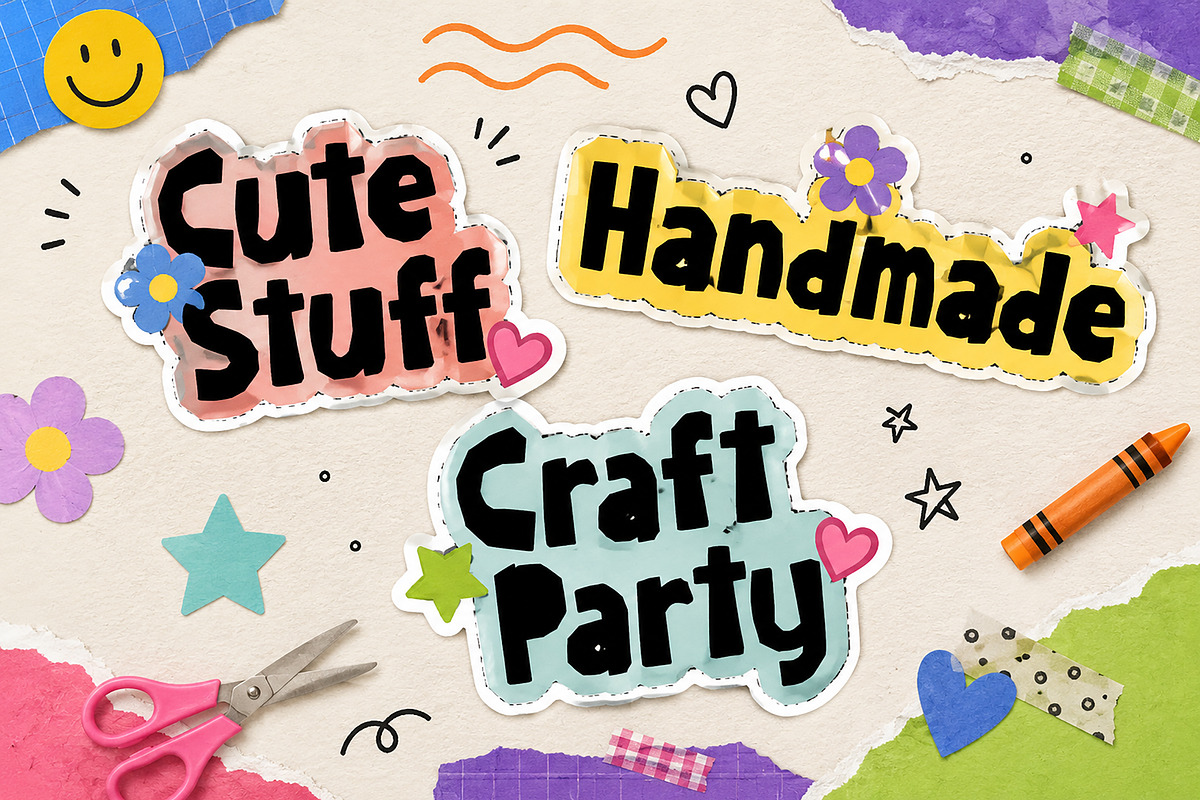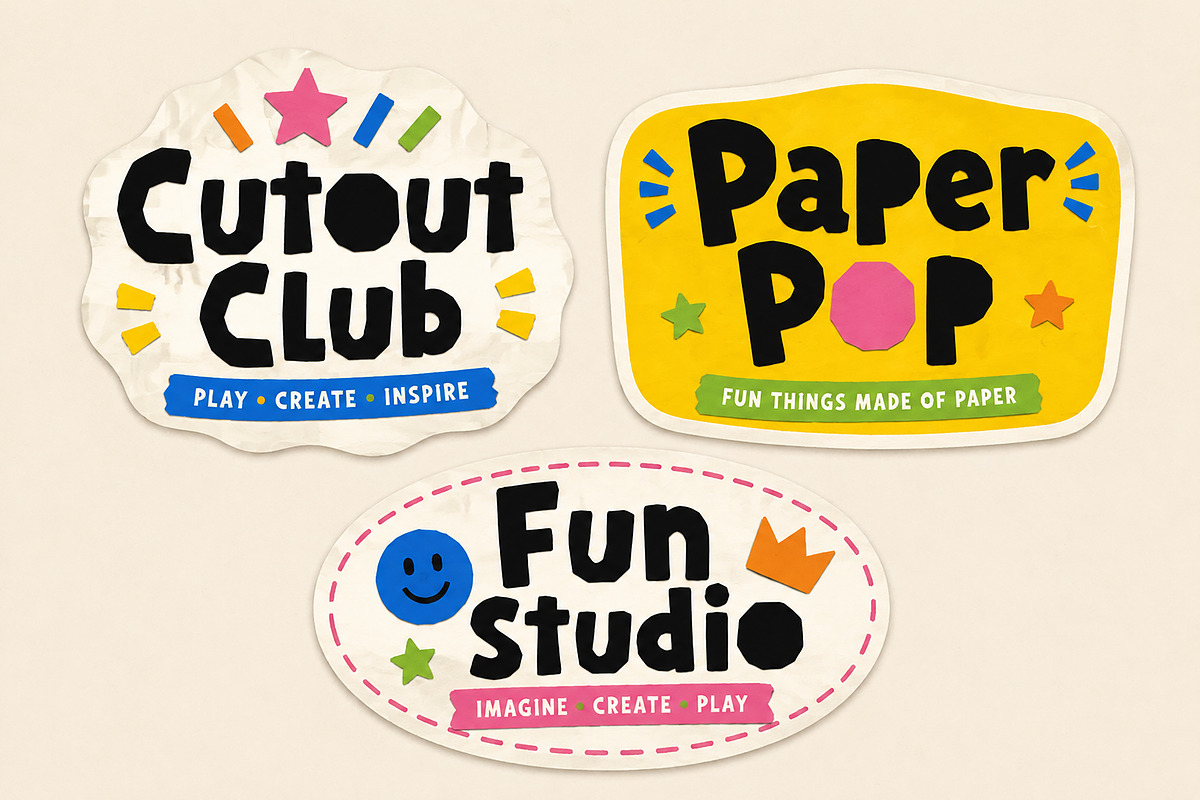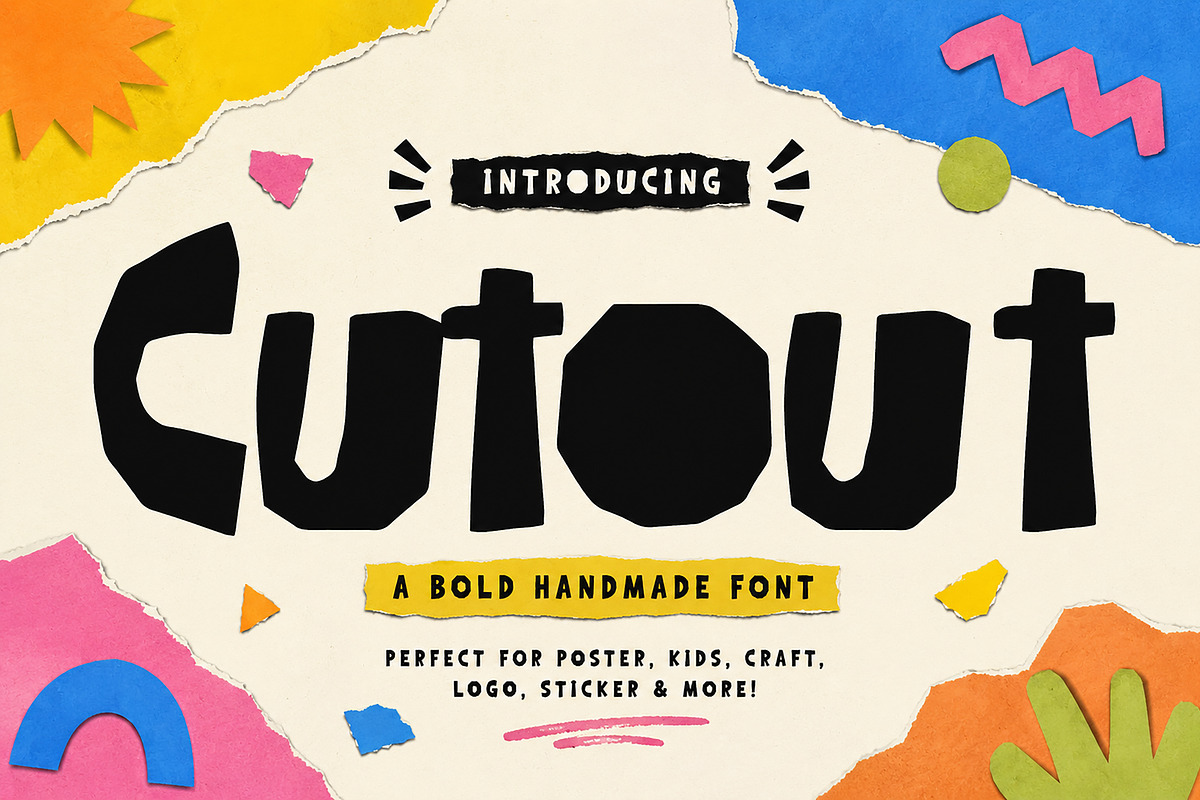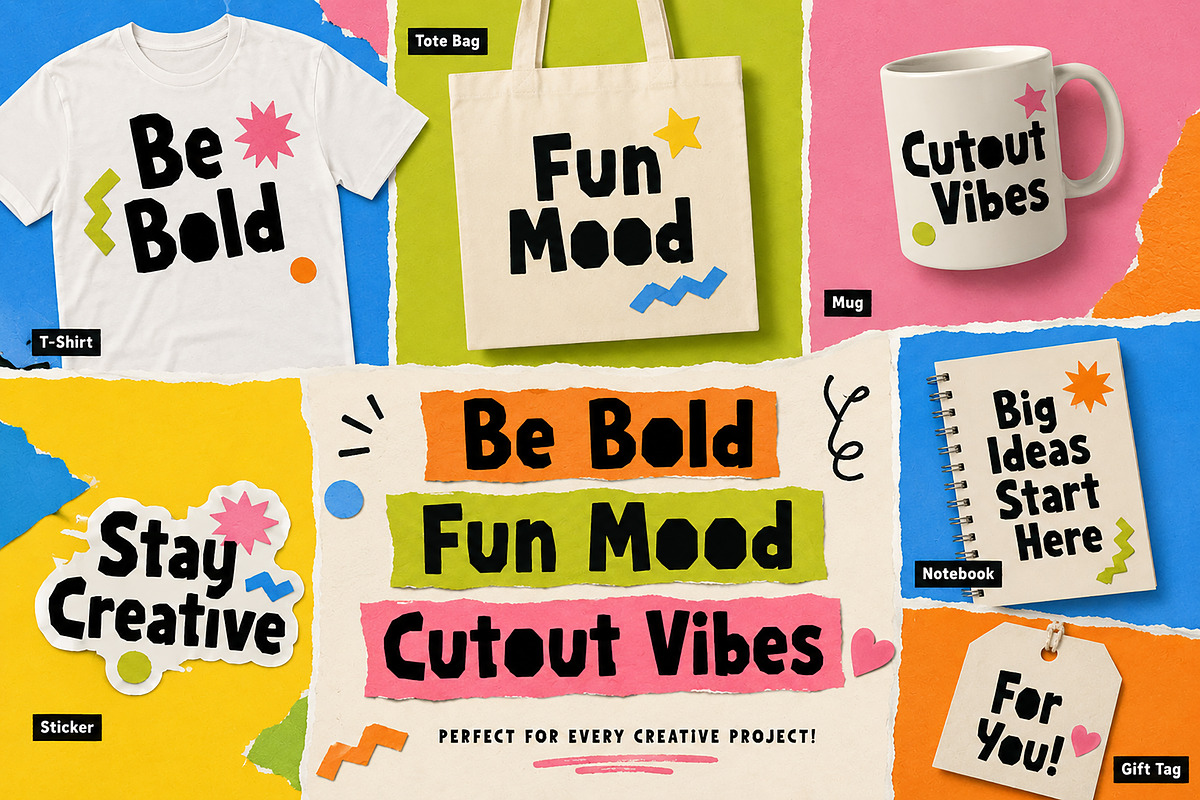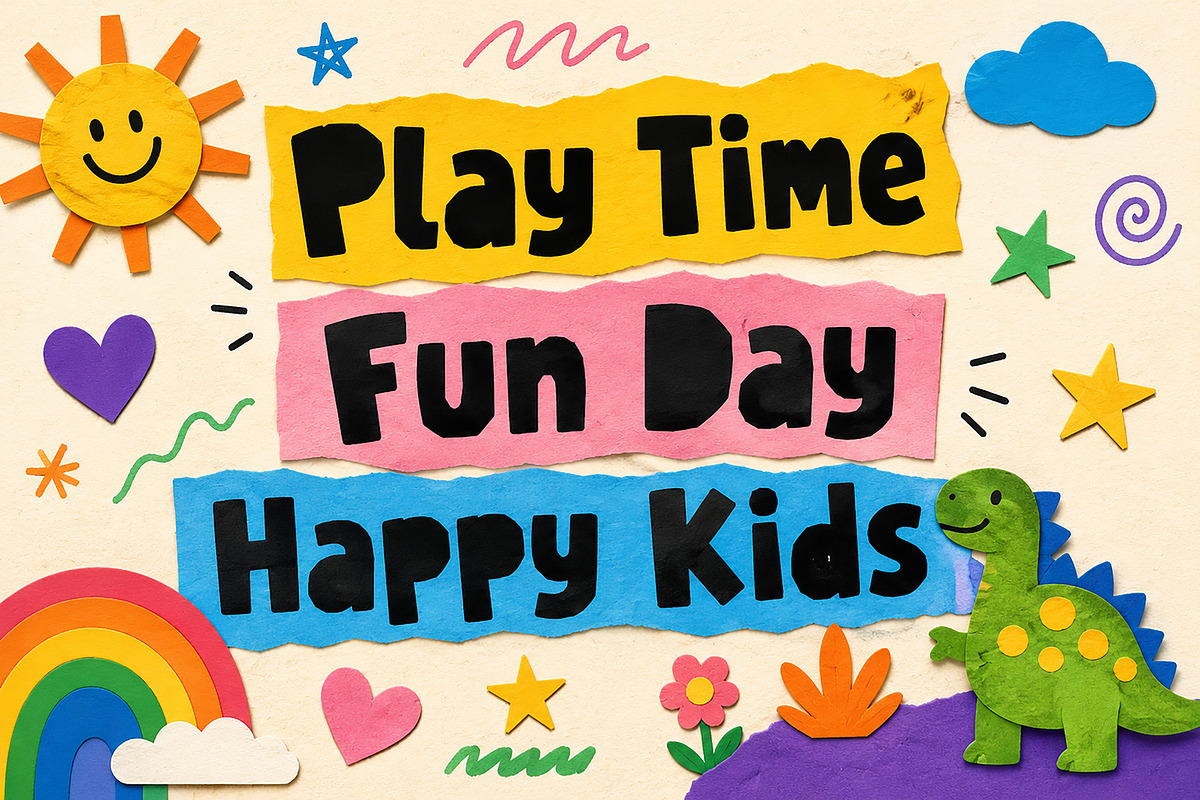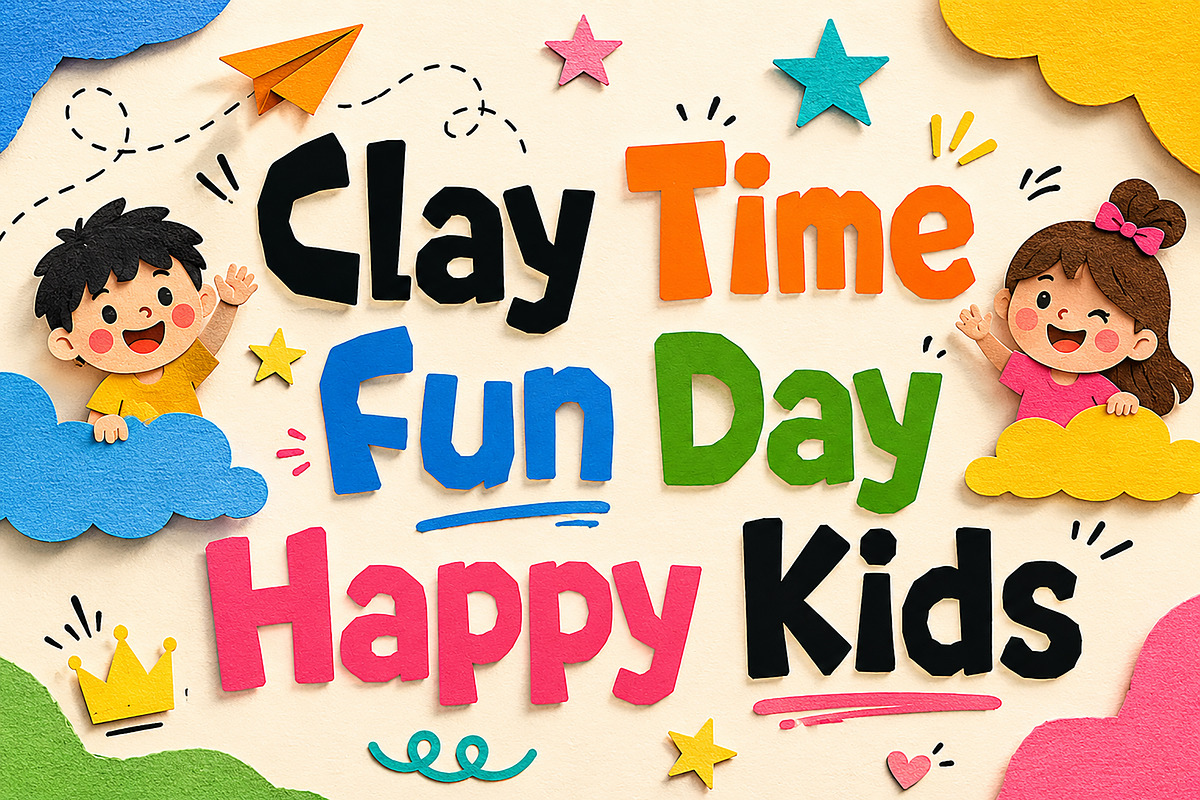
Cutout
Cutout – Playful Handmade Display Font
Introducing Cutout, a bold and playful handmade display font inspired by paper-cut crafts, scrapbook designs, stickers, and children's artwork. With its chunky shapes, irregular edges, and handcrafted personality, Cutout instantly adds a fun and creative touch to any project.
This unique typeface is perfect for designers looking to create eye-catching titles, playful branding, colorful posters, classroom materials, kids' products, stickers, Cricut projects, packaging, and social media graphics. The handmade cut-paper aesthetic gives every design a cheerful and friendly appearance that stands out effortlessly.
Whether you're designing for children, crafting products, toy brands, birthday invitations, or creative merchandise, Cutout delivers a charming and memorable look.
Kids Posters
Classroom Decorations
Birthday Invitations
Scrapbook Designs
Sticker Projects
Cricut Crafts
Toy Branding
Children's Books
YouTube Thumbnails
T-Shirts & Merchandise
Greeting Cards
Creative DIY Projects
Bring fun, creativity, and handmade charm to your next project with Cutout!